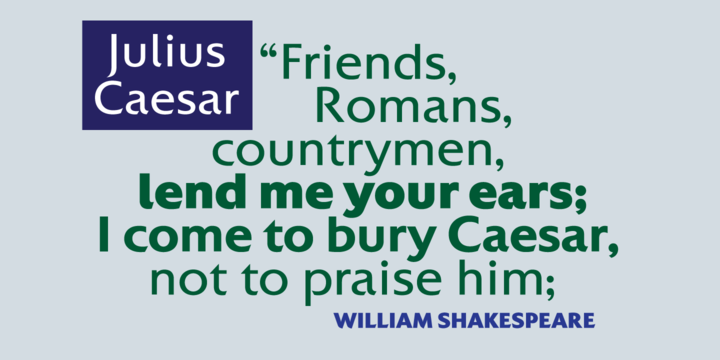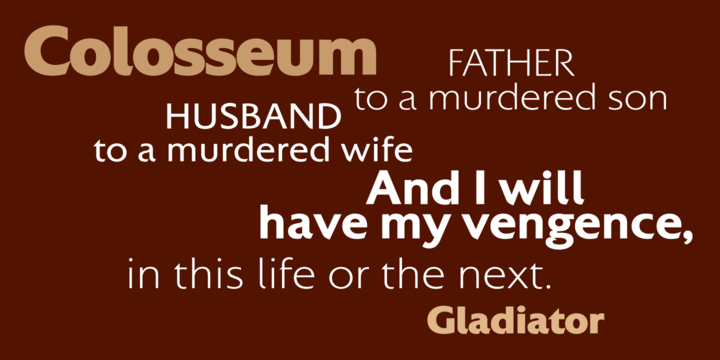
Colosseum Family Font: A Modern Sans Serif with a Rich History
The Colosseum Family Font is a unique sans serif typeface that draws inspiration from the classic Trajan Roman form. Although it may appear to be a modern, minimalist font at first glance, it actually owes its style to one of the oldest and most iconic Roman typefaces. In this article, we’ll explore the history and design of the Colosseum Family Font, and how it can be used to add a touch of elegance and sophistication to your design projects.
The Origins of Colosseum Family Font
The Colosseum Family Font is a sans serif typeface that was designed to evoke the classic feel of the Trajan Roman form. The Trajan typeface is one of the oldest Roman typefaces, created in the 2nd century AD and named after the Roman Emperor Trajan. It’s known for its elegant and refined lines, which have been a benchmark for typography for centuries. The Colosseum Family Font takes this classic style and adapts it to a modern sans serif font, making it perfect for use in a wide range of design projects.
Influence of Friz Quadrata
In addition to its roots in the Trajan Roman form, the Colosseum Family Font also borrows some characteristics from the Friz Quadrata typeface. Friz Quadrata is a geometric sans serif font that was designed in the 1970s, known for its clean lines and modern feel. By combining the elegance of Trajan with the simplicity of Friz Quadrata, the Colosseum Family Font achieves a unique balance of classic and modern styles.
The Colosseum Family Font is a highly adaptable typeface that is suitable for use in a wide range of design projects. Its sans serif design makes it easy to read in body text, while its elegant lines and refined details make it perfect for use in headlines and titles. The font features a range of design characteristics that set it apart from other sans serif typefaces, including:
- Geometric lines: The Colosseum Family Font features clean, geometric lines that give it a modern and sophisticated feel.
- Elegant details: The font includes elegant details such as subtle curves and refined terminals, which add a touch of classic elegance to its design.
- High x-height: The Colosseum Family Font has a high x-height, which makes it easy to read in body text and gives it a clear, legible appearance.
Using Colosseum Family Font in Design Projects
The Colosseum Family Font is a versatile typeface that can be used in a wide range of design projects, from branding and advertising to packaging and digital design. Here are a few examples of how you can use the Colosseum Family Font in your design projects:
- Headlines and titles: The Colosseum Family Font is perfect for use in headlines and titles, where its elegant lines and refined details can add a touch of sophistication and elegance.
- Body text: The font’s clean lines and high x-height make it easy to read in body text, making it suitable for use in longer blocks of text.
- Branding and advertising: The Colosseum Family Font is a great choice for branding and advertising projects, where its unique blend of classic and modern styles can help to create a memorable and engaging brand identity.
The Colosseum Family Font is a unique and versatile typeface that offers a fresh take on the classic sans serif font. With its elegant lines, refined details, and adaptable design, it’s perfect for use in a wide range of design projects. Whether you’re a designer, craftsperson, or simply someone who appreciates great typography, the Colosseum Family Font is definitely worth checking out.
So why not give the Colosseum Family Font a try in your next design project? With its rich history, modern style, and adaptability, it’s sure to be a hit with designers and crafters alike.